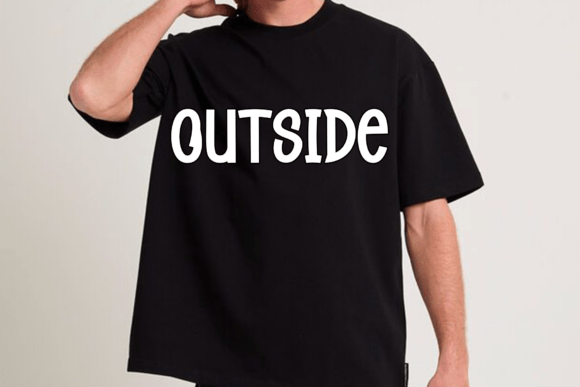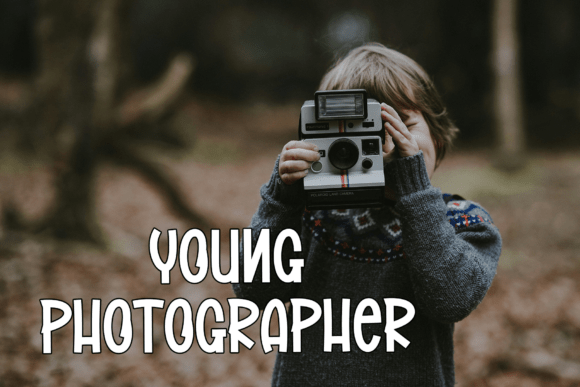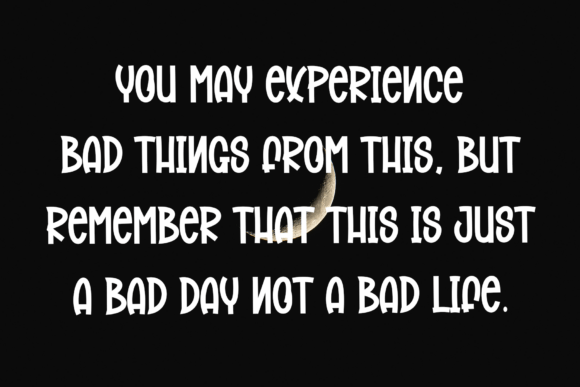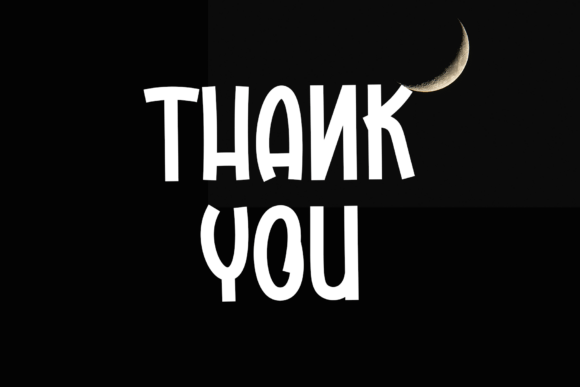
The Goodnight Font: A Warm and Inviting Display Font for Creative Projects
I’ll never forget the design project that led me to discover the Goodnight font. I was working on a branding campaign for a cozy bed-and-breakfast, and I needed a font that would capture the warmth and hospitality of the business. After hours of scrolling through font libraries, I stumbled upon Goodnight – a casual yet refined display font that instantly resonated with the project’s vibe.
An Honest Review of Goodnight Font
What I Love About Goodnight Font
- ✨ **Clean lines and balanced letterforms**: Goodnight’s design ensures excellent readability, making it perfect for headlines, titles, and short paragraphs.
- ✅ **Warm and approachable vibe**: The subtle rounded edges and smooth curves give Goodnight a friendly and inviting character that’s hard to resist.
- 💡 **Versatile style**: Goodnight’s polished finish makes it suitable for a wide range of design applications, from branding and packaging to digital content and more.
While Goodnight is an excellent font, it’s not without its quirks. For instance:
- 🤔 **Limited use for body text**: Due to its display nature, Goodnight might not be the best choice for lengthy paragraphs or body text.
- ⚠️ **Occasional kerning issues**: As with any font, you might encounter some kerning issues, especially when using it in combination with other fonts.
- Experiment with OpenType features, such as stylistic alternates, to add some personality to your text.
The Backstory of Goodnight Font
Goodnight font was designed with the intention of creating a warm and inviting display font that would capture the essence of modern handwritten typography. The designer aimed to craft a font that would be both polished and approachable, making it perfect for a wide range of design applications.
Q: What is Goodnight font best suited for?
A: Goodnight font is perfect for branding, headlines, packaging, and digital content, where a warm and inviting character is desired.
Q: Can I use Goodnight font for body text?
A: While Goodnight font can be used for short paragraphs, it’s primarily designed as a display font and might not be the best choice for lengthy body text.
Q: Does Goodnight font support OpenType features?
A: Yes, Goodnight font supports OpenType features, including stylistic alternates, glyphs, and more.